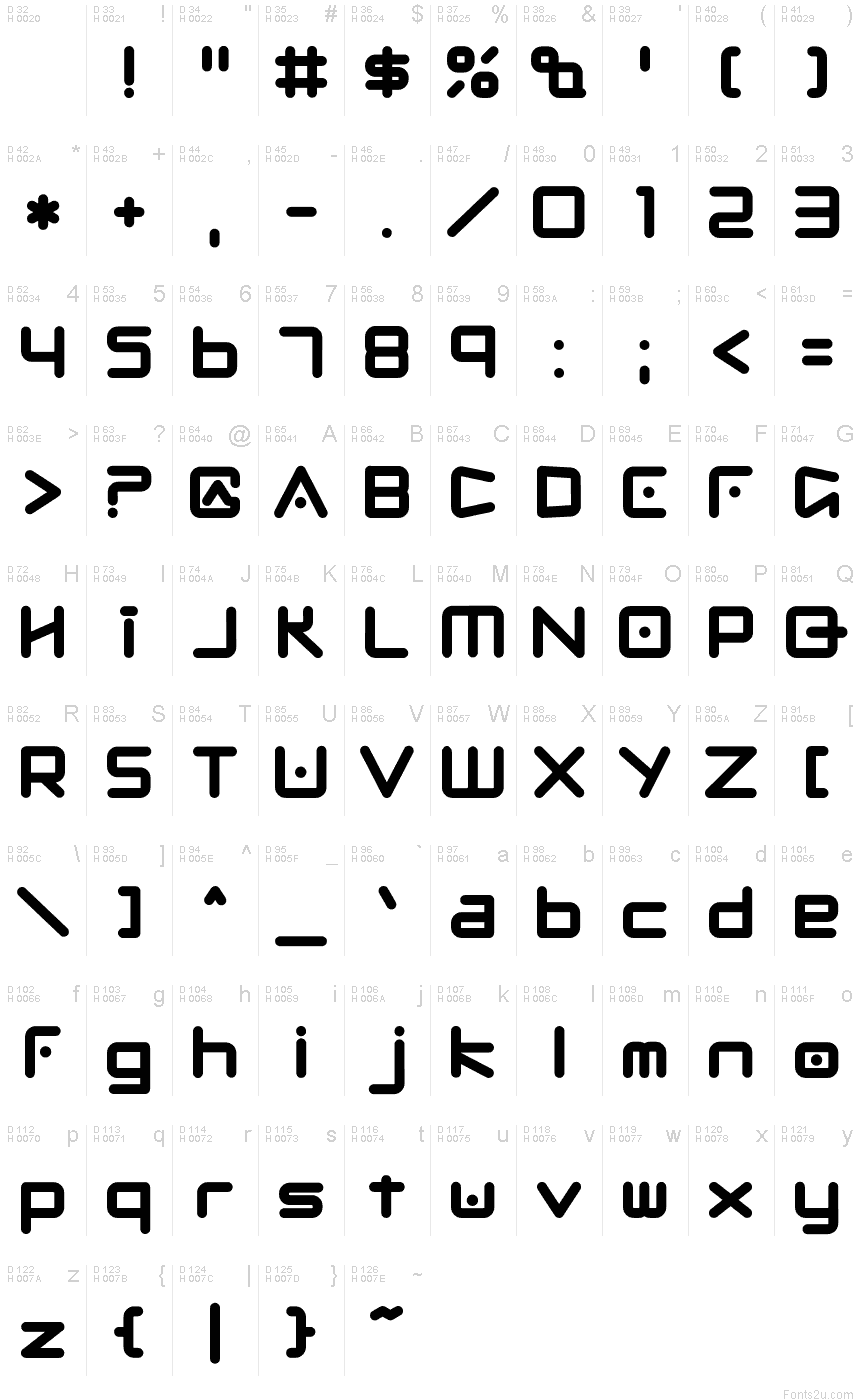
fRiNgE
fRiNgE font is a free futuristic display typeface that looks like it just stepped out of a neon-soaked sci-fi interface. Its chunky, rounded rectangles and tall, pill-like strokes feel tactile and rubbery, while the quirky mix of upper- and lowercase shapes gives every word a custom-logo vibe. The gaps and square counters add a digital, modular rhythm that stays bold and legible even at large sizes.
Using fRiNgE, headlines feel techy and playful at the same time, making this free font a natural fit for gaming titles, electronic music covers, event posters, tech startups, product logos, and bold social graphics. It shines when you give it room to breathe, so set it big and pair it with a clean geometric sans for body text to keep the look sharp and cohesive.